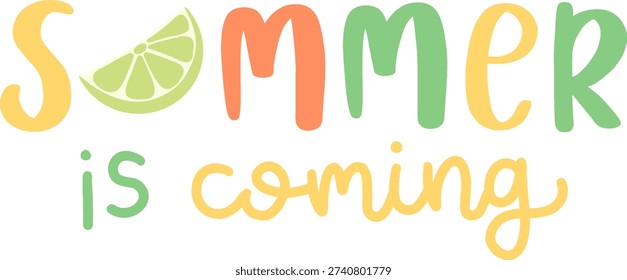
Lemona is a beautiful hand-drawn playful font for display headings and titles. The display font is pleasant to read on screen without strain. It fits the projects that require fun and cheerful designs!
It works perfectly for creative projects such as logo, badge, invitation, packaging, apparel design, heading and title, poster, magazine, greeting card, printed quotes flyers and wedding invitation and more.